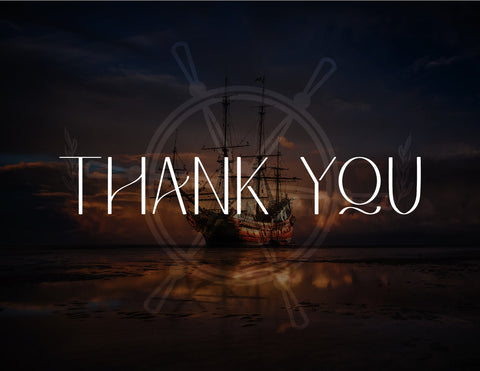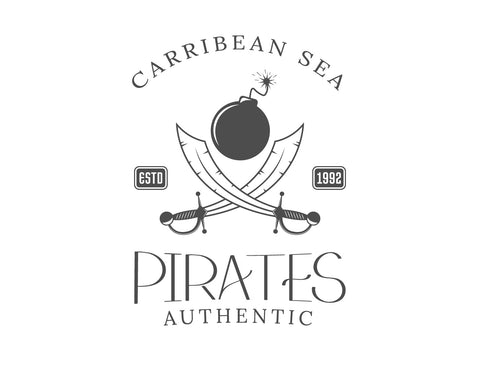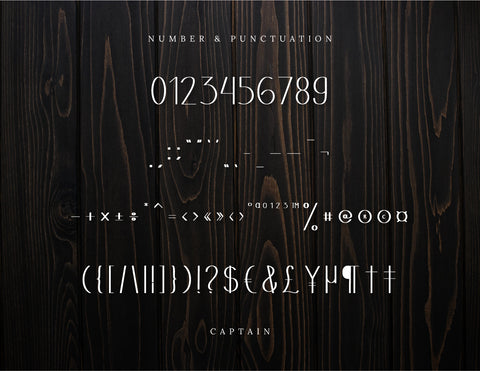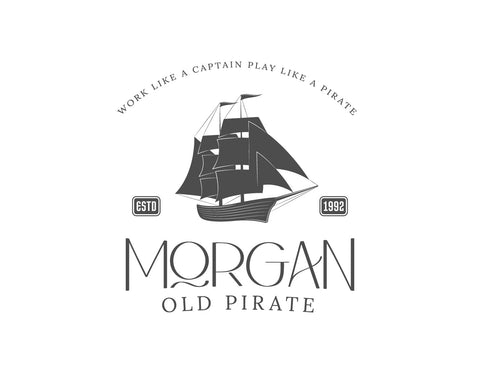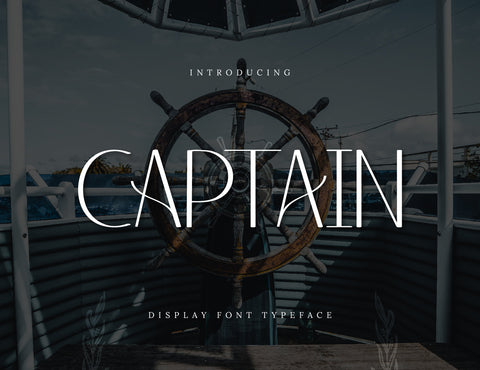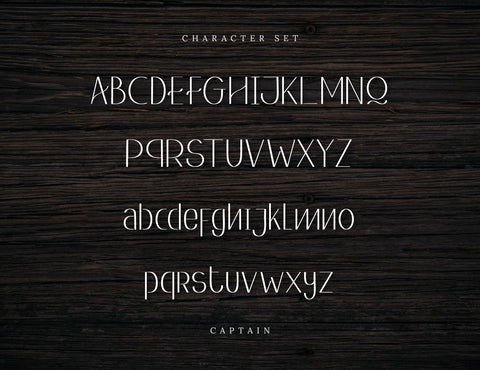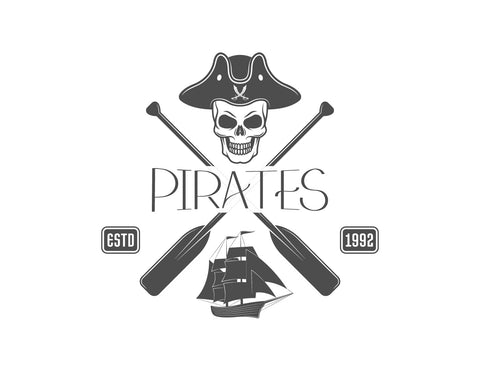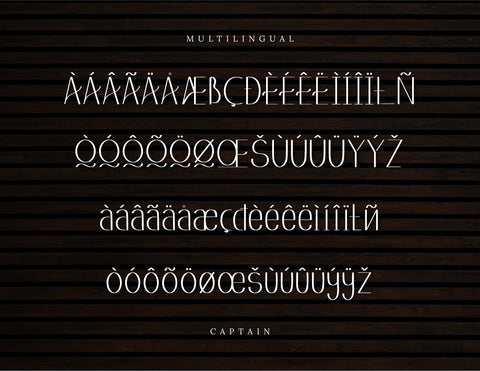
Captain Display Typeface
Captain Display Typeface a Minimalist Modern Elegant font with beautiful ligatures, tons of special alternative glyphs, ornament and multilingual support. It's a very versatile font that works great in large and small sizes. Carla Sans is perfect for branding projects, Logo design, Clothing Branding, product packaging, magazine headers, or simply as a stylish text overlay to any background image.